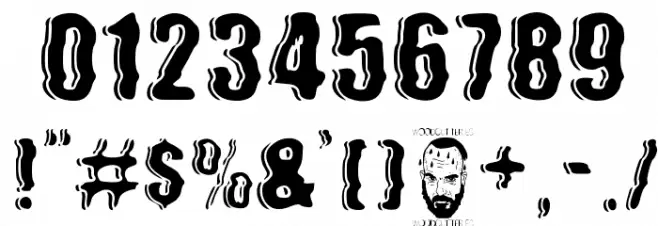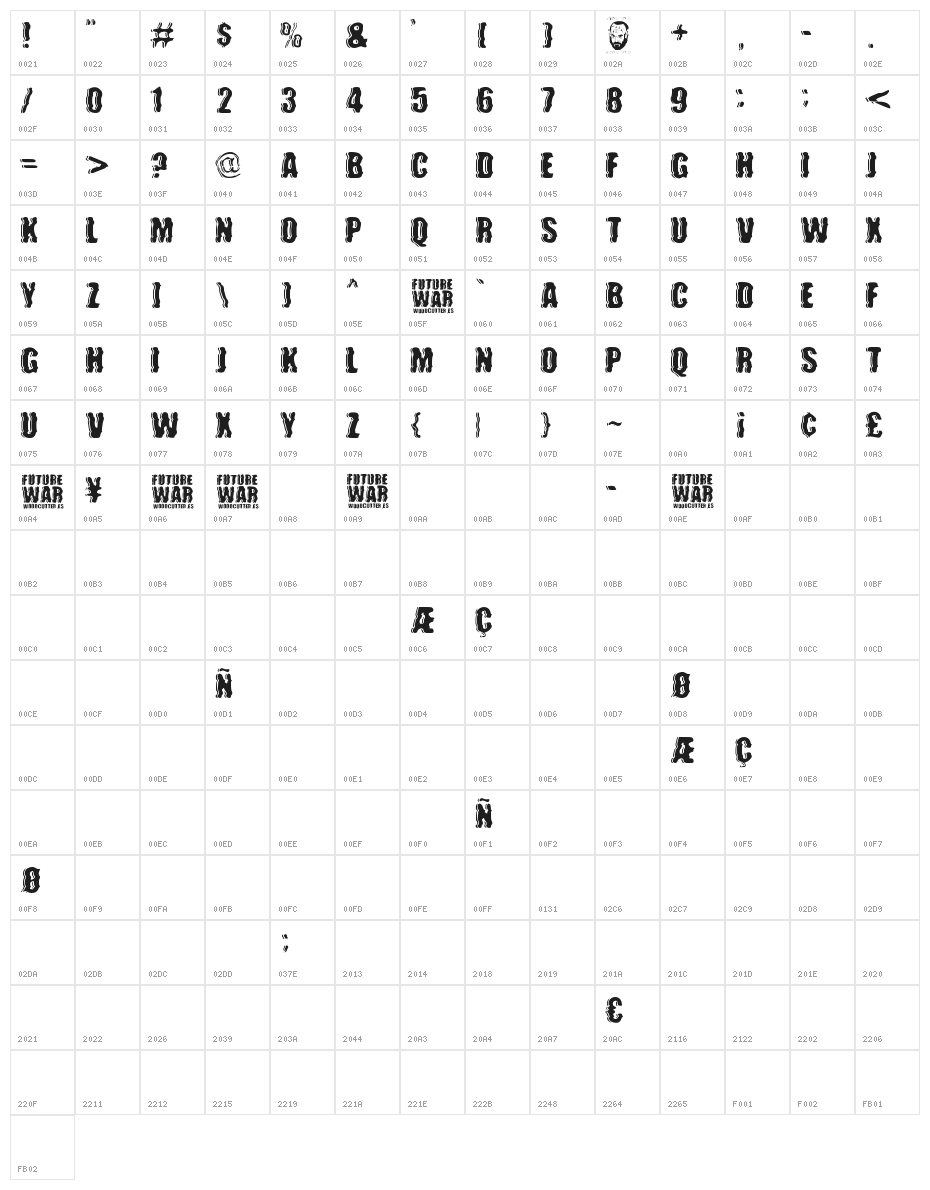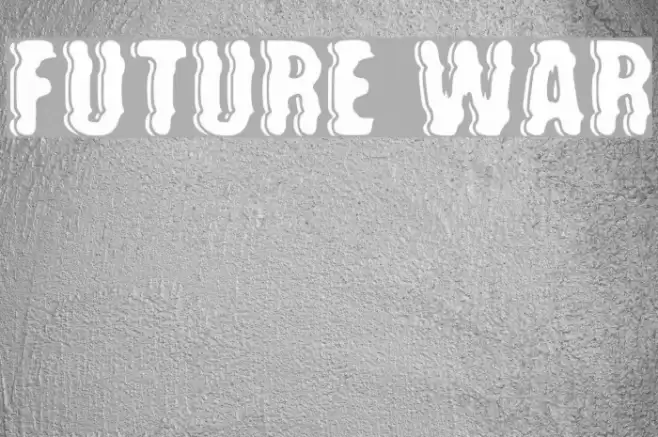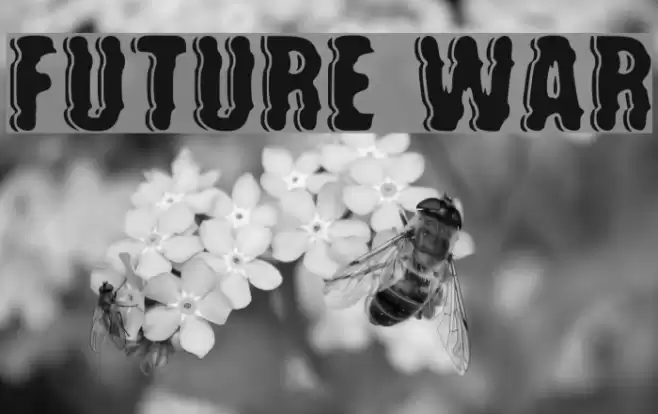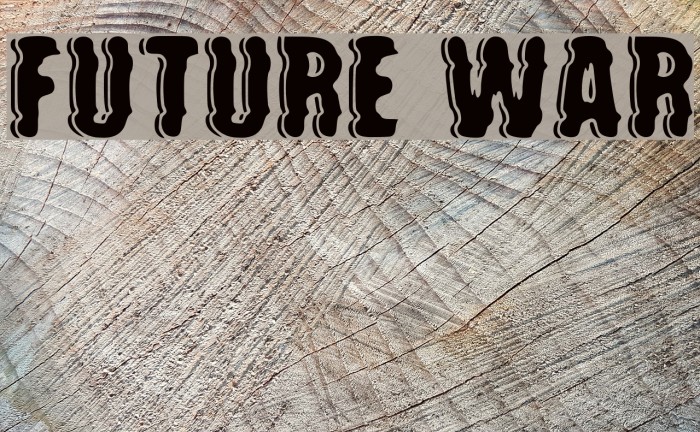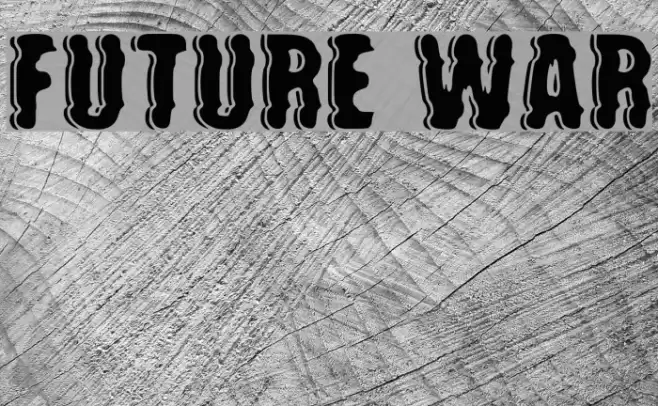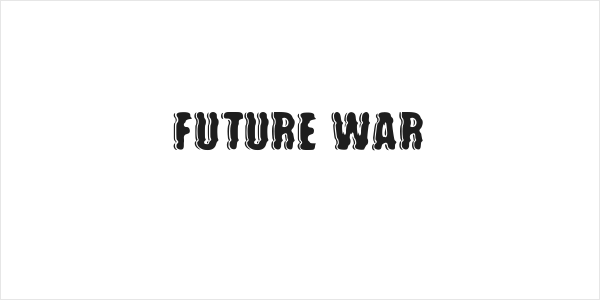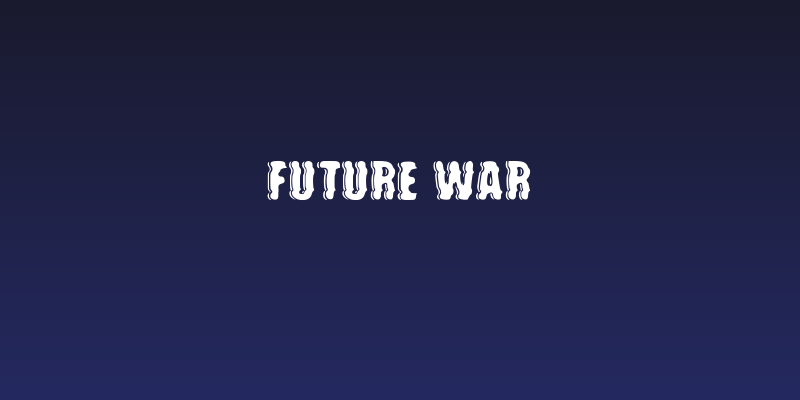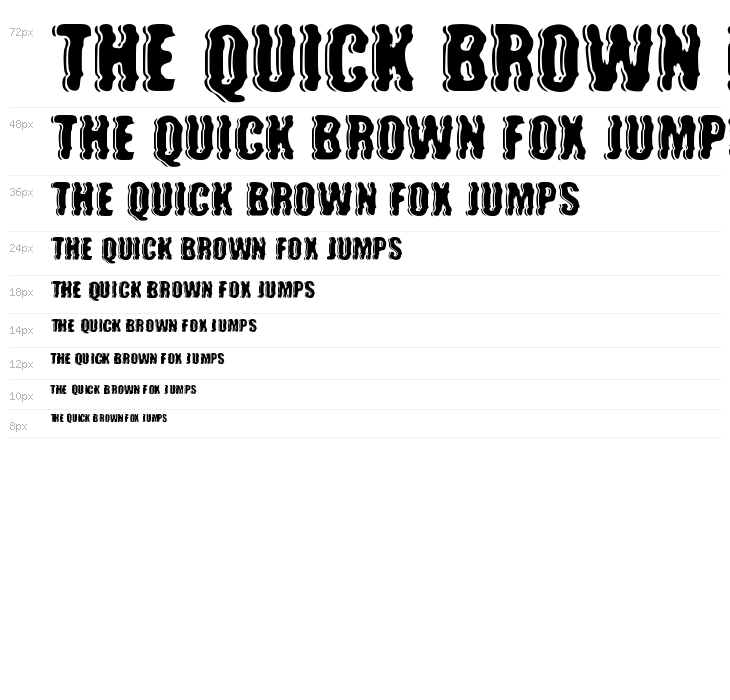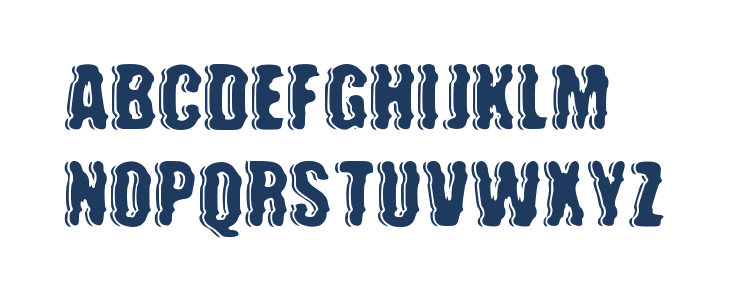
future war Font
future war Description
This font features a bold, dripping effect that gives it a unique, liquid-like appearance. The characters are heavily stylized, with thick strokes and irregular edges that create a sense of movement and fluidity. The uppercase and lowercase letters maintain a consistent style, with the numbers and special characters following suit. This font's dramatic and eye-catching design makes it ideal for projects that require a strong visual impact. Its distinctive look is reminiscent of horror or sci-fi themes, making it suitable for creative and unconventional uses.